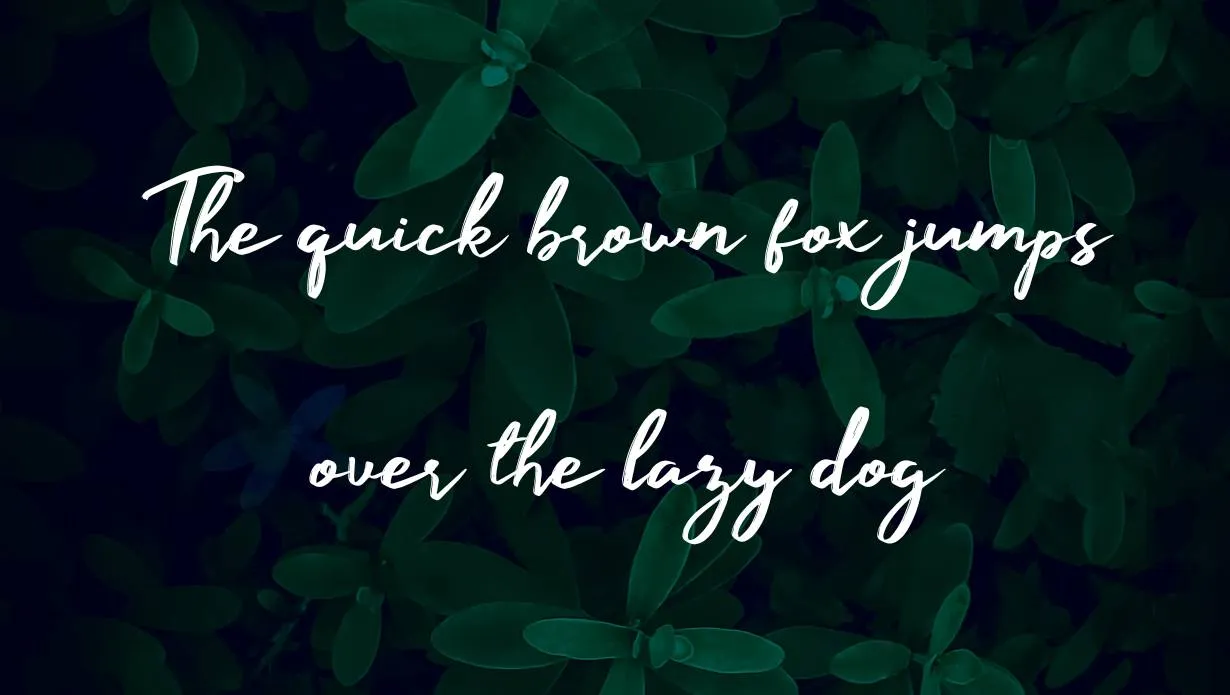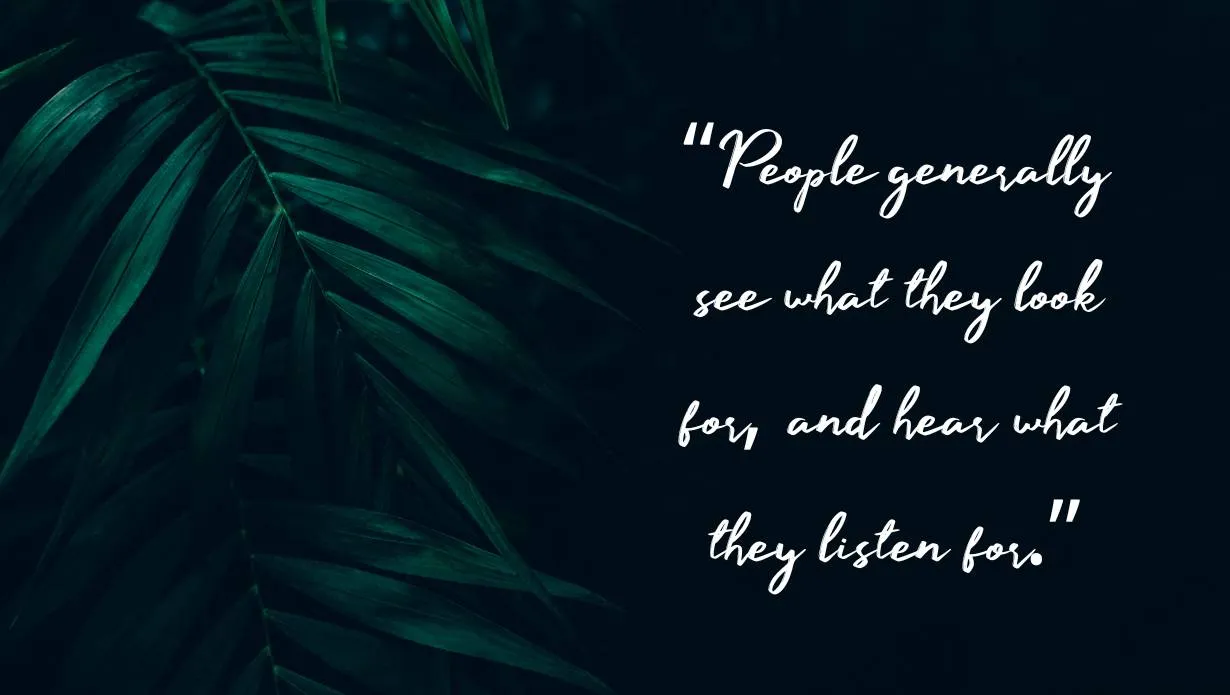
Manyland font is a combination of modern and vintage-designed characters. This typeface is named after the Manyland game. The designer and publisher of this attractive font is Craft Supply Co foundry. This typeface belongs to a script handwritten family.
This typeface has highly legible character so you use it for both print and digital media. Many popular brands like Honda and Nissan are utilizing this modern typeface for their branding. You can utilize it for non-commercial purposes.
| Name | Manyland Font |
| Designer | Craft Supply Co |
| Style | Handwritten |
View of Manyland Font